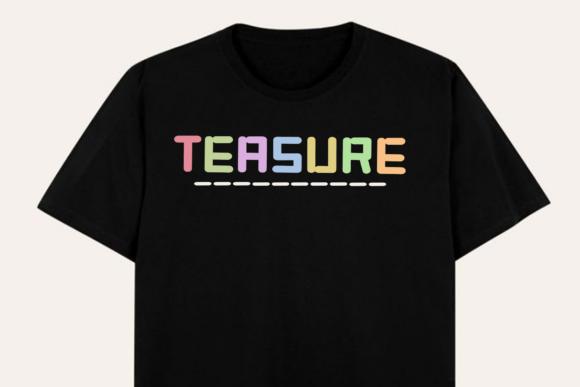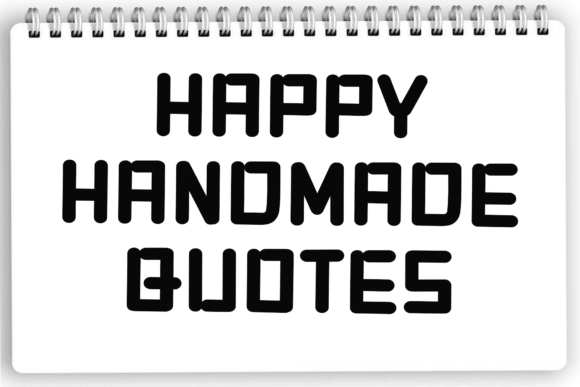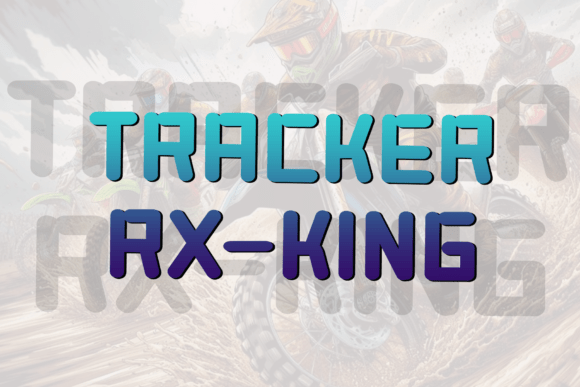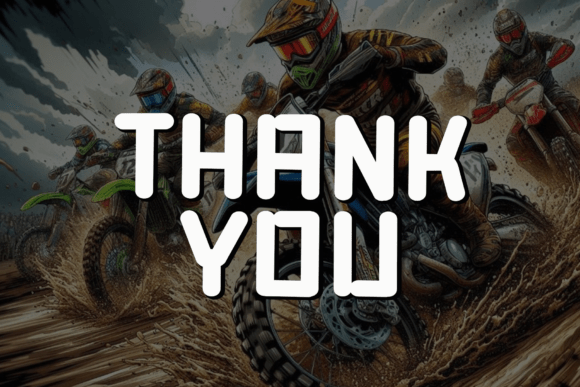
Introduction to Rider Survive Font
Rider Survive is a modern display font that beautifully blends futuristic elements with a sleek, simple design.
Its stylized, slightly condensed letterforms feature distinct circular cutouts and unique, rounded terminals, giving it a captivating, high-tech aesthetic Perfect for projects requiring a sharp, digital, and professional look, Tecnologic is ideal for tech branding, gaming logos, sci-fi posters, app interfaces, and modern headlines that need a clean, sophisticated, and forward-thinking style.
Key Features of Rider Survive Font
Why Choose Rider Survive Font?
Rider Survive Font offers exceptional quality and versatility, making it a valuable addition to your design toolkit. Whether you’re creating for personal projects or commercial use, Rider Survive Font delivers professional results.